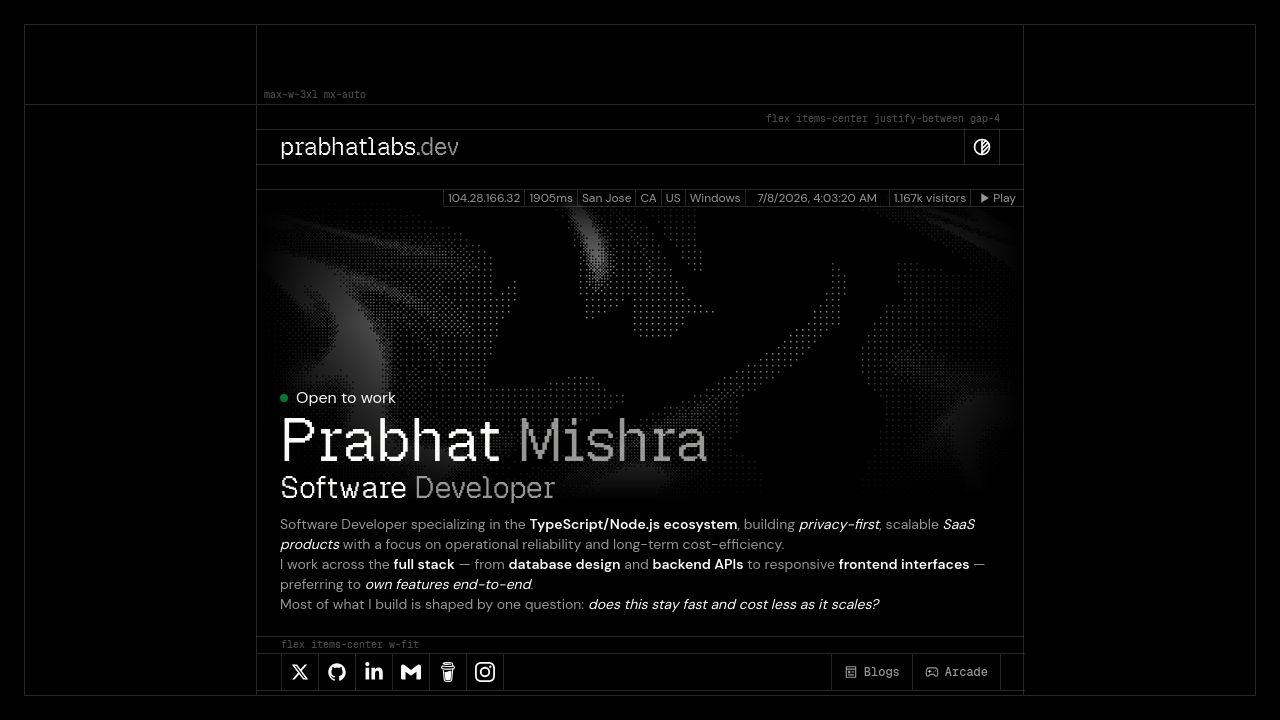
What fonts does Prabhatlabs use?
At prabhatlabs.dev, Prabhat Mishra showcases his expertise as a software developer through a carefully selected typographic palette. The use of DM Sans offers a clean and approachable look for his portfolio, while Geist Mono adds a distinct technical flair, reflecting his programming skills. The variety of custom GeistPixel fonts contributes to a unique visual identity, appealing to tech-savvy clients and collaborators looking for innovative SaaS solutions.
What fonts are used on prabhatlabs.dev?
The primary fonts on prabhatlabs.dev include DM Sans, Geist Mono, and several custom GeistPixel fonts such as GeistPixelSquare, GeistPixelTriangle, and more.
How do the fonts on prabhatlabs.dev compare to alternatives?
DM Sans offers a friendly and modern touch compared to more traditional sans-serif fonts, while Geist Mono provides a distinctive coding aesthetic that stands out against standard monospace options like Menlo or Monaco.
What styles and weights are used in the fonts on prabhatlabs.dev?
DM Sans is used in weights ranging from 100 to 1000, offering flexibility. Geist Mono and the custom GeistPixel fonts are primarily used in weight 500, ensuring consistency across the site.